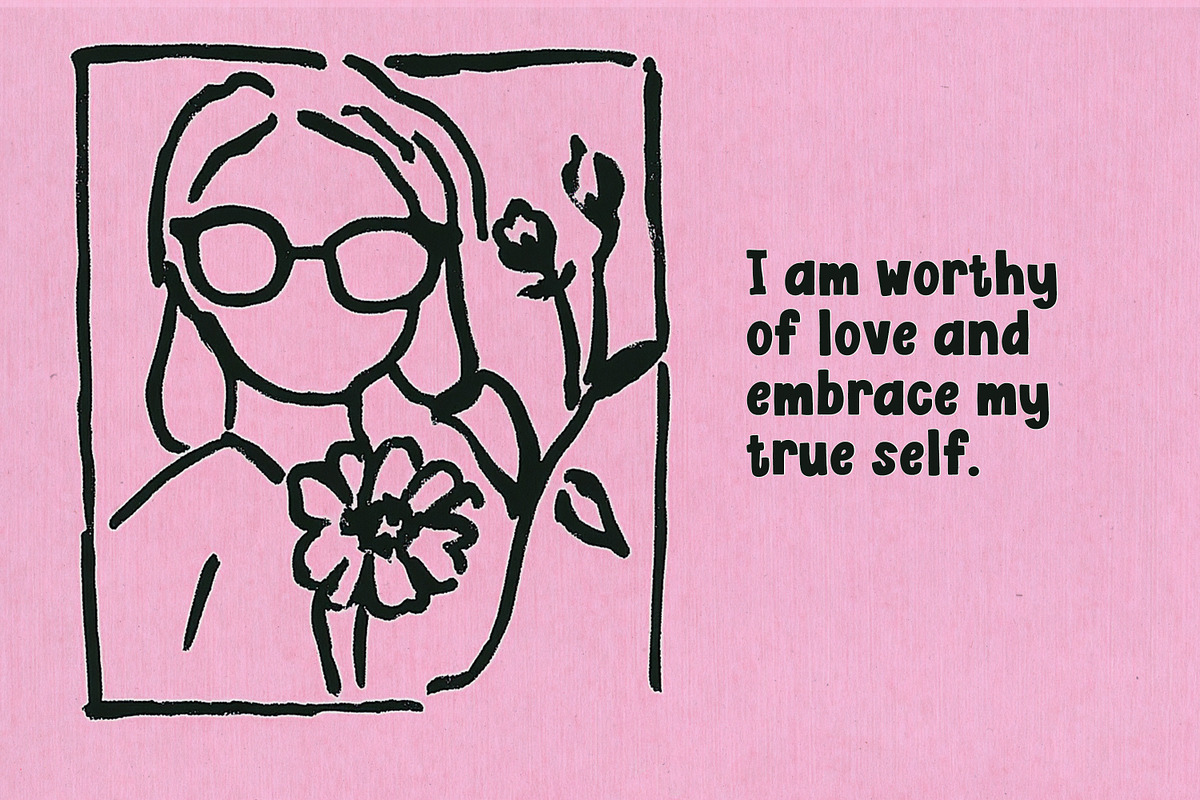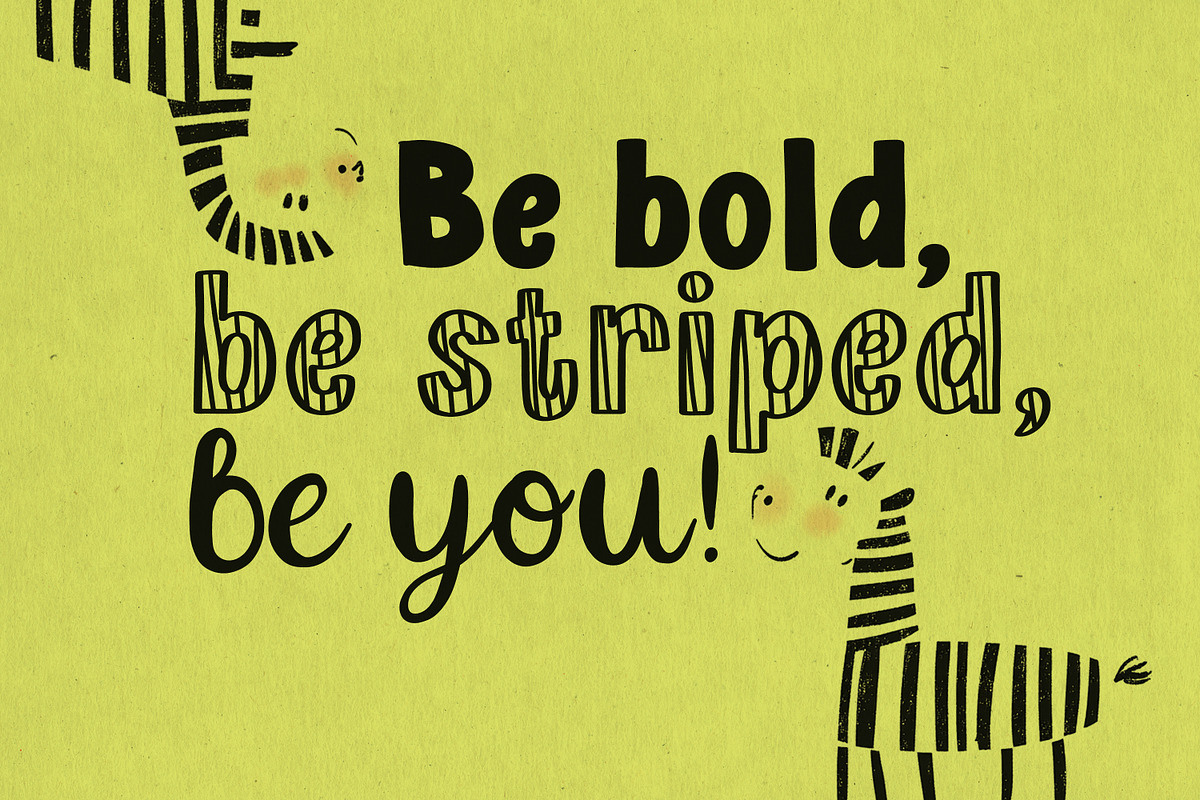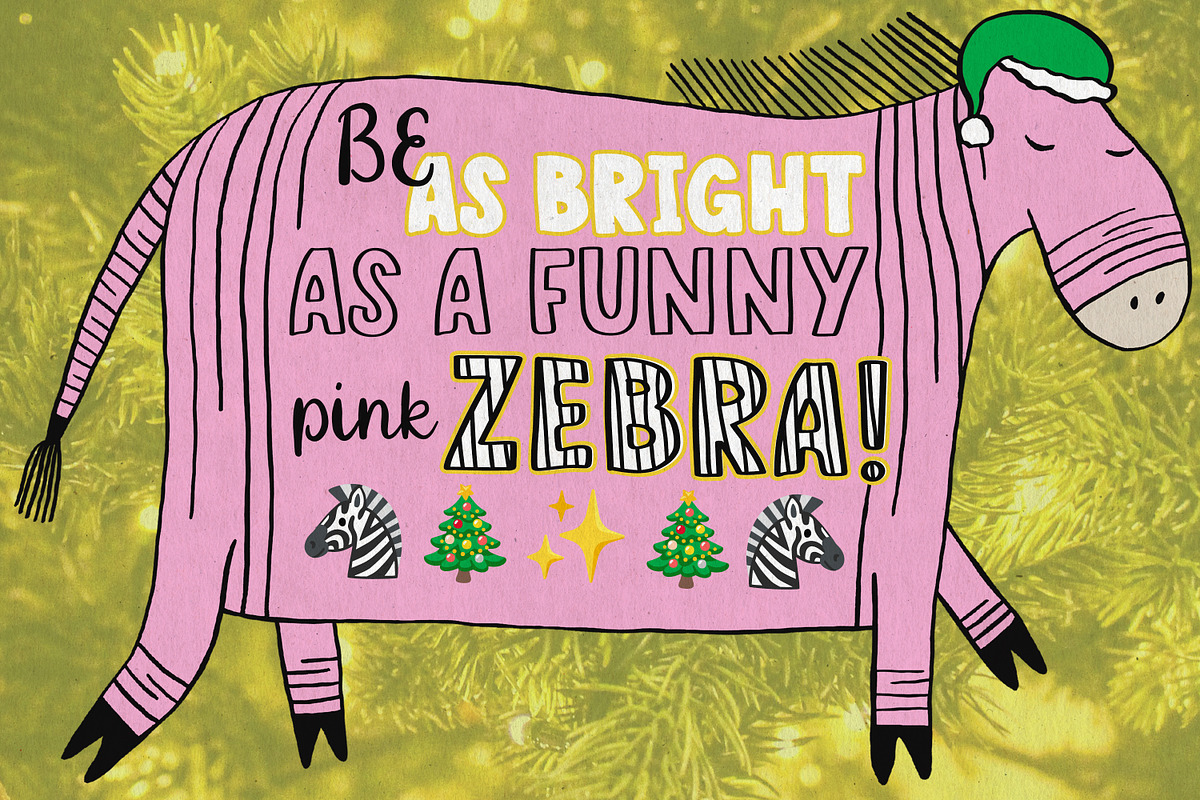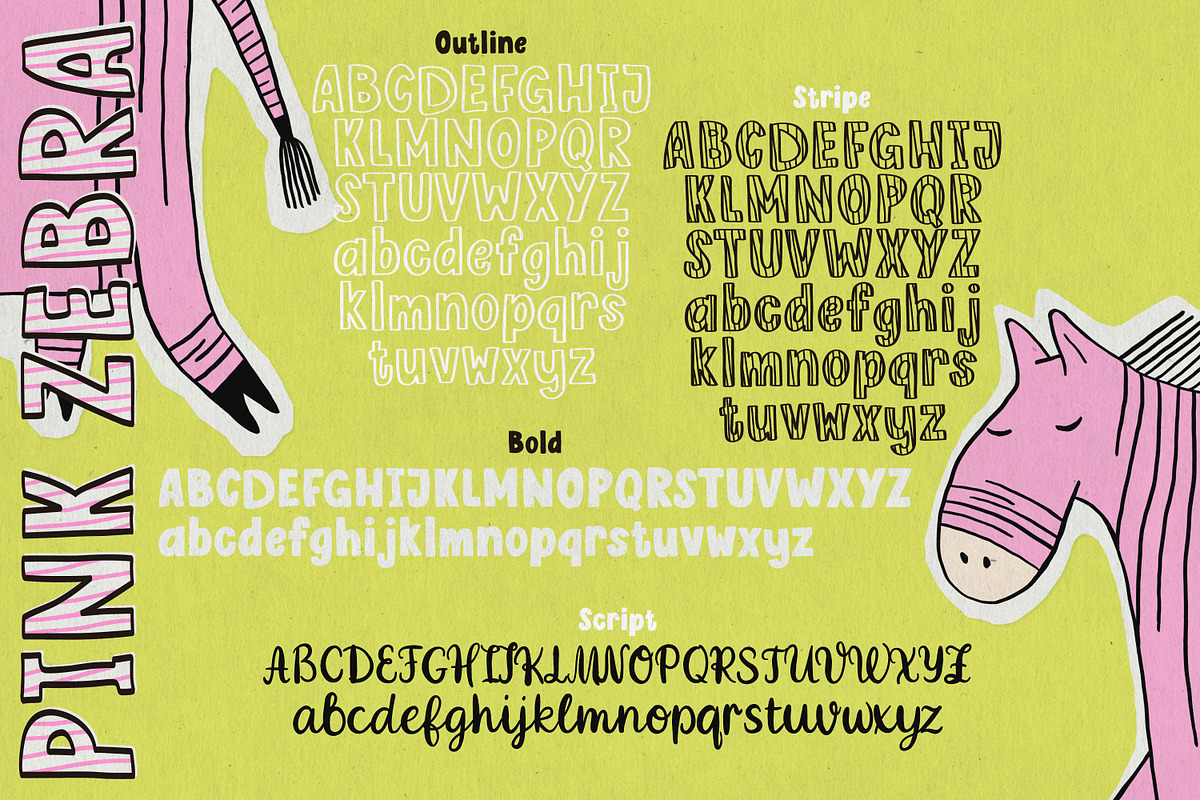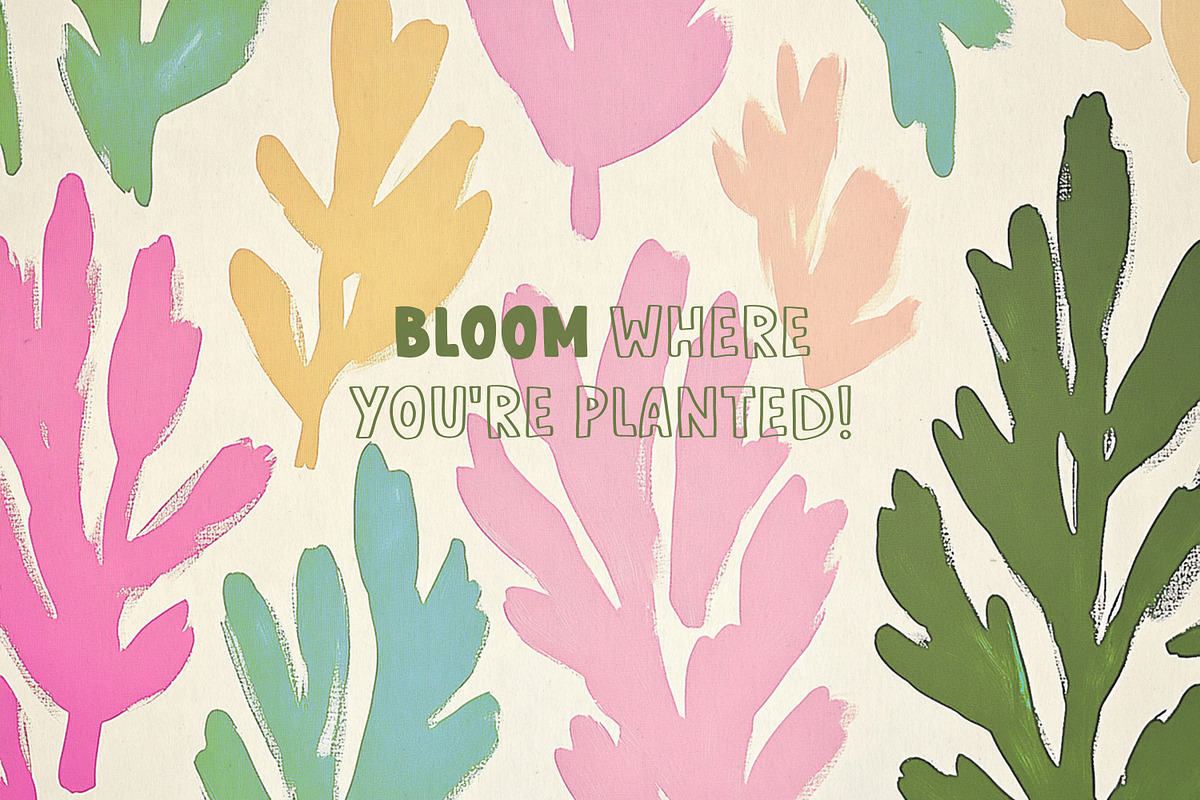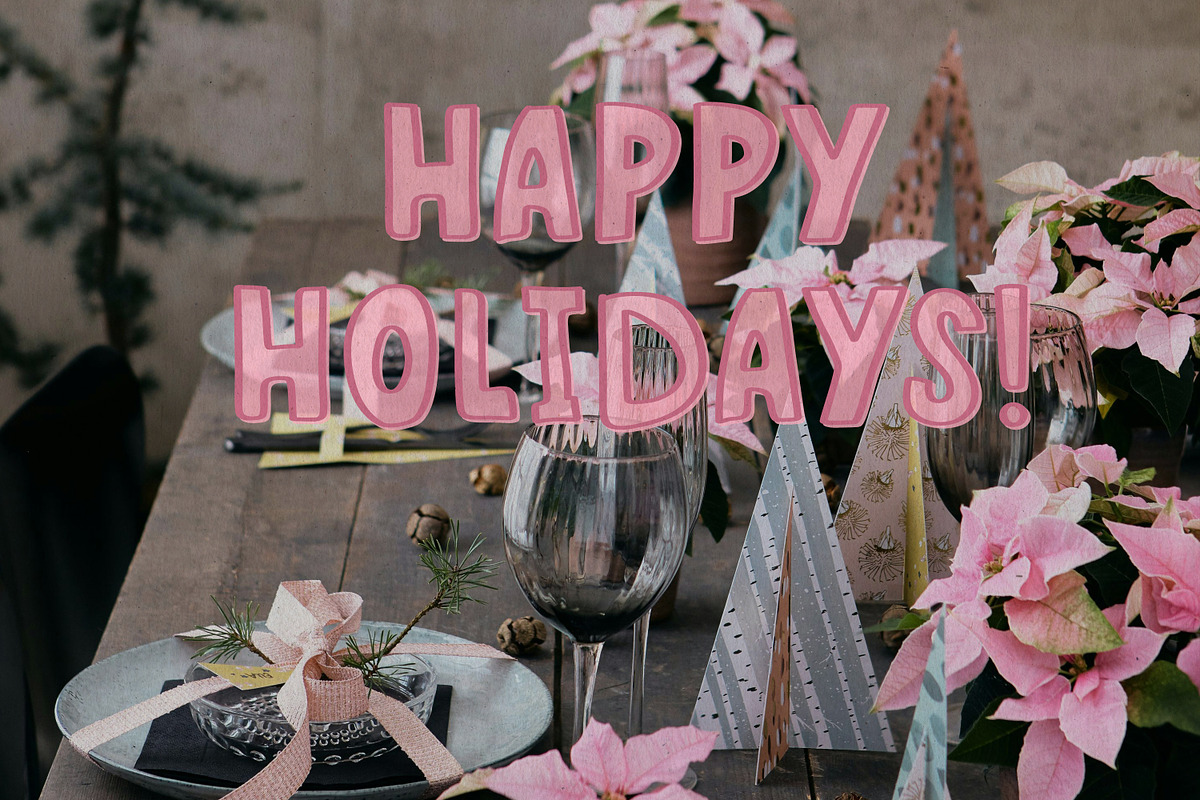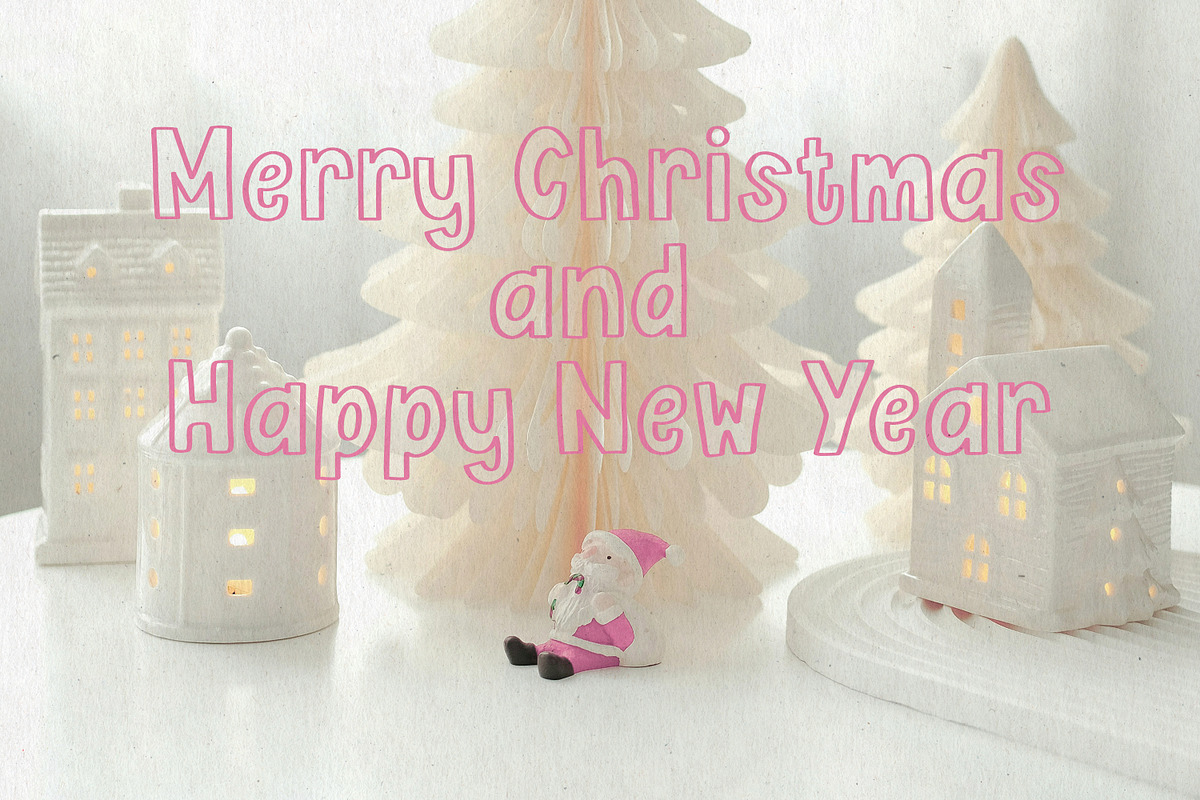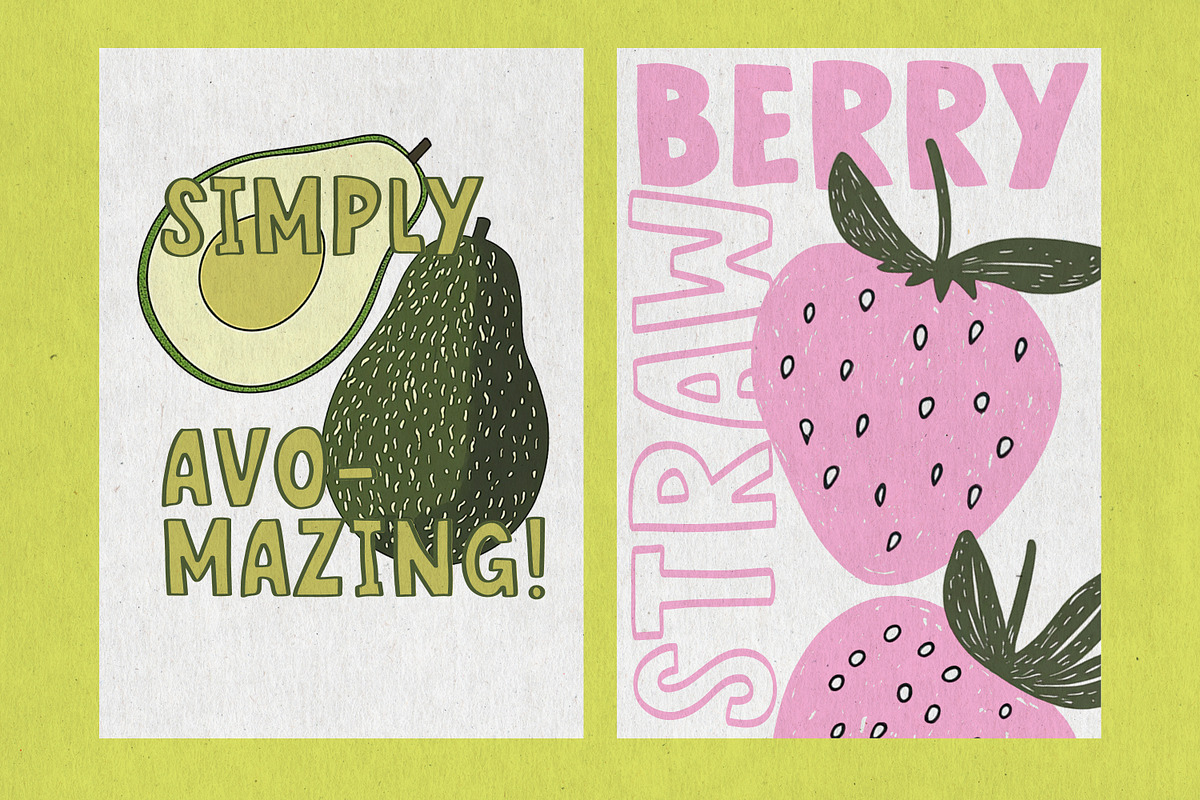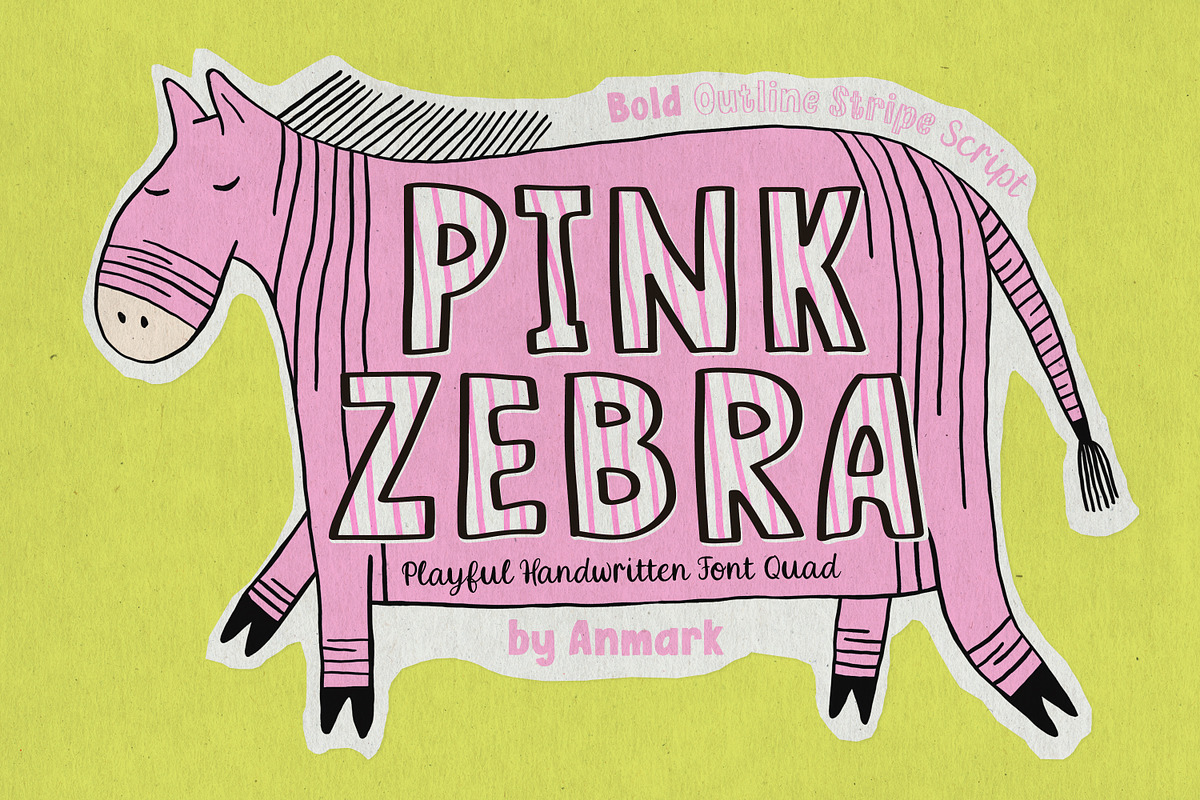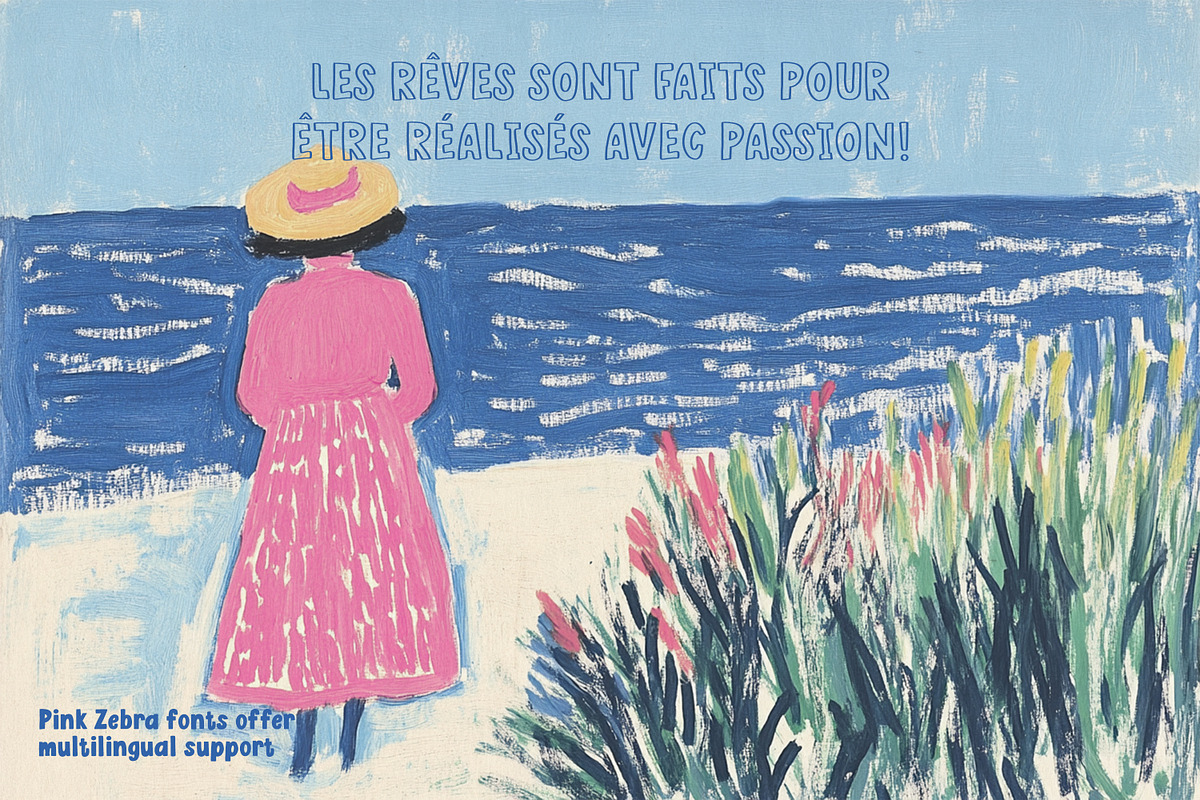
Pink Zebra Quirky Four-Font Family
Meet Pink Zebra, a whimsical handwritten font that brings joy and character to your designs! Featuring four unique handwritten styles - Outline, Bold, Stripe and Script - this font adds a creative touch to posters, invitations, menus, and more. Whether you're designing a vibrant book cover or crafting eye-catching graphics, Pink Zebra brings a fun and stylish flair to every project. Let your creativity shine with this extraordinary font!
In addition to its playful personality, Pink Zebra fonts also boast multilingual capabilities. They seamlessly support a variety of languages, including English, Spanish, French, German, Portuguese, Italian, and many more. This makes the font family an adaptable choice for a wide range of international projects and global audiences.
Pink Zebra is a delightful font family that shines with its playful and whimsical charm.